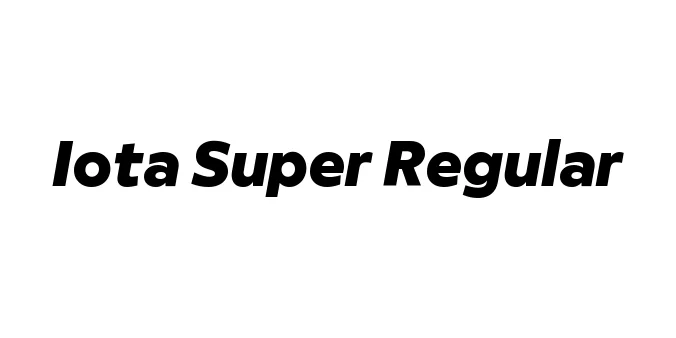
Iota Super Regular
Designed by Rostislaw Tumanov
| Category | Geometric Sans-Serif |
Iota Super Regular is a contemporary geometric sans-serif typeface that emphasizes mathematical precision and modern aesthetic clarity. Developed as a bold interpretation of the classic grotesque styles, this font features high-impact stroke consistency and open apertures, making it exceptionally legible even in demanding digital environments.
The design of Iota Super Regular focuses on a minimalist approach, stripping away unnecessary flourishes to provide a neutral yet sophisticated canvas for designers. It has gained popularity in the tech and fashion industries for its ability to convey an authoritative and clean brand image across both high-resolution displays and traditional print media.
Iota Super Regular Best Uses
Perfect for creating strong, minimalist corporate identities and logo marks.
Highly effective for headers and navigation elements in mobile and web apps.
Excellent for large-scale headlines and impactful pull quotes in magazines.
Ideal for high-end product packaging and promotional posters.